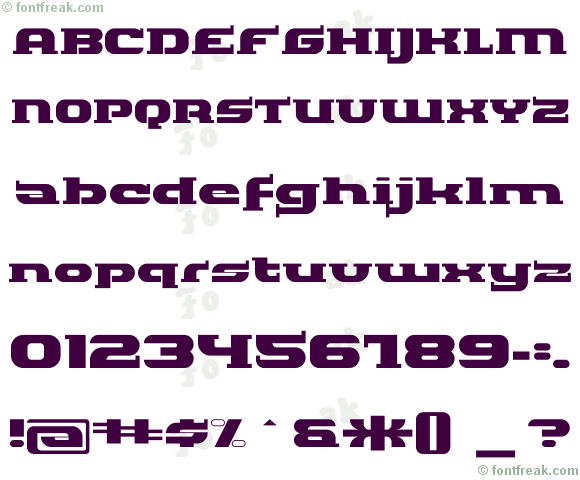
Helga Broad
Helga Broad, designed by Mickey Rossi in 1997, is a striking display font that stands out with its unique character and bold presence. This freeware typeface offers a distinctive style that falls into the decorative category, making it ideal for eye-catching designs. The font features thick, broad strokes with a moderate contrast that lends a sense of weight and authority, while the letterforms are well-spaced, enhancing readability without sacrificing style. The design incorporates subtle decorative elements that give it a playful yet sophisticated look, making it versatile for various applications.
Helga Broad is perfect for a range of creative projects. Its bold nature makes it an excellent choice for restaurant menus that need to grab attention, as well as for movie posters where dramatic flair is essential. Additionally, it works beautifully for wedding invitations, lending a sense of elegance to the special occasion. Graphic designers will find it useful for branding materials that require a memorable and impactful typeface. Small business owners can also leverage its unique aesthetic to enhance their marketing collateral.
The target audience for Helga Broad includes graphic designers, small business owners, and content creators who seek to infuse their work with a distinctive flair. This font not only captures attention but also conveys a message of creativity and originality.
What sets the Helga Broad font apart is its balance between boldness and elegance, making it a go-to choice for various design needs. Whether you're looking to make a statement or add a touch of character to your project, the Helga Broad font free download provides an opportunity to elevate your designs effortlessly. Its uniqueness and versatility make it a valuable asset in any designer's toolkit.